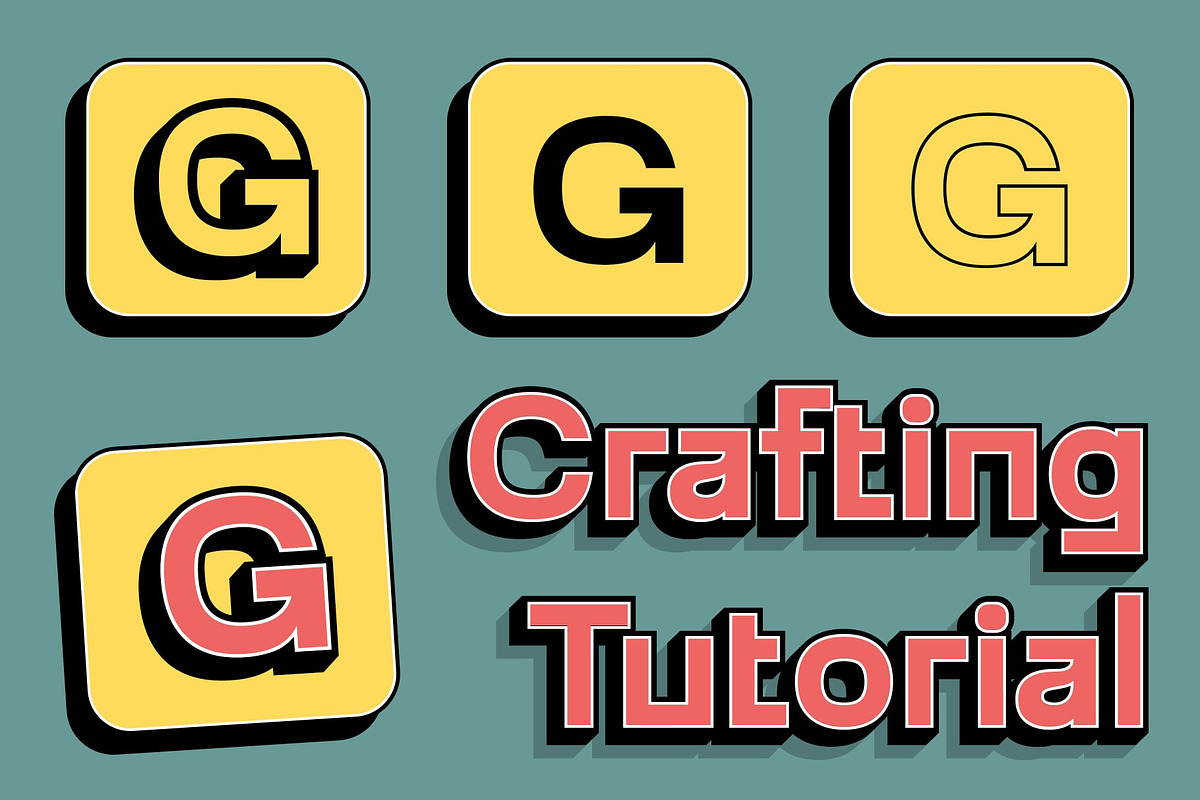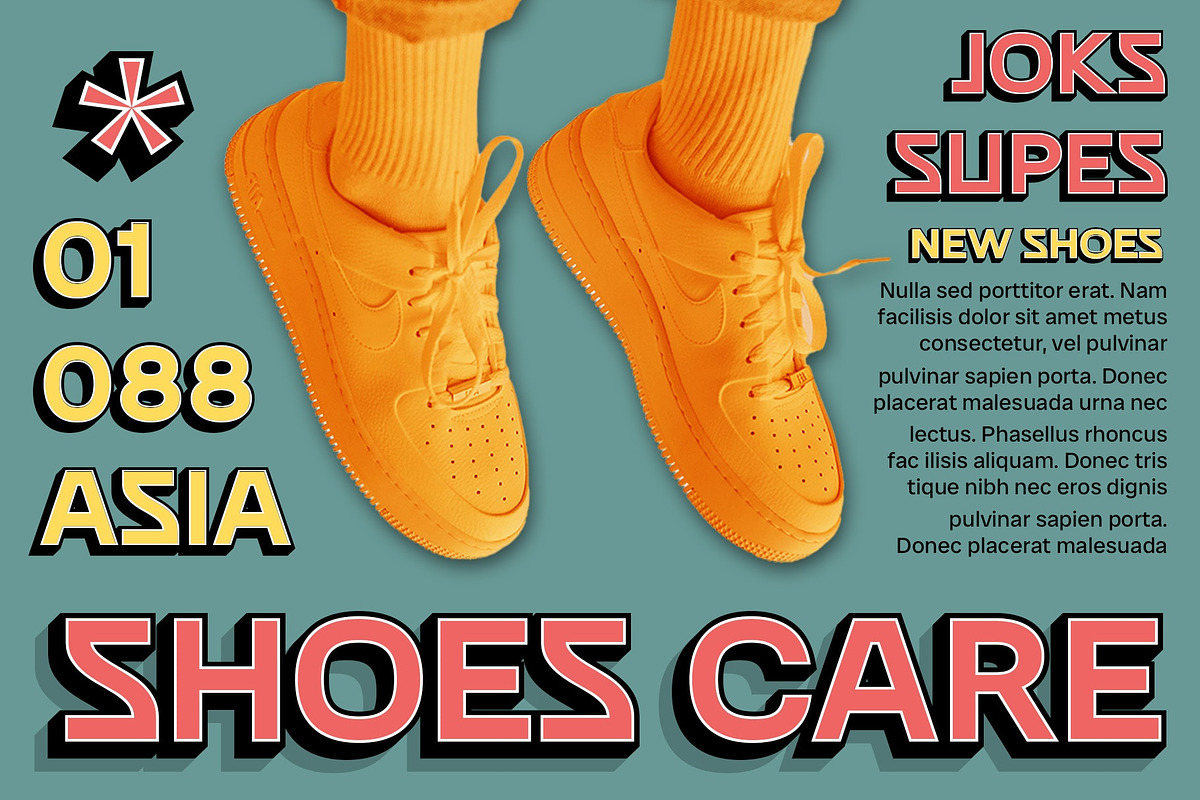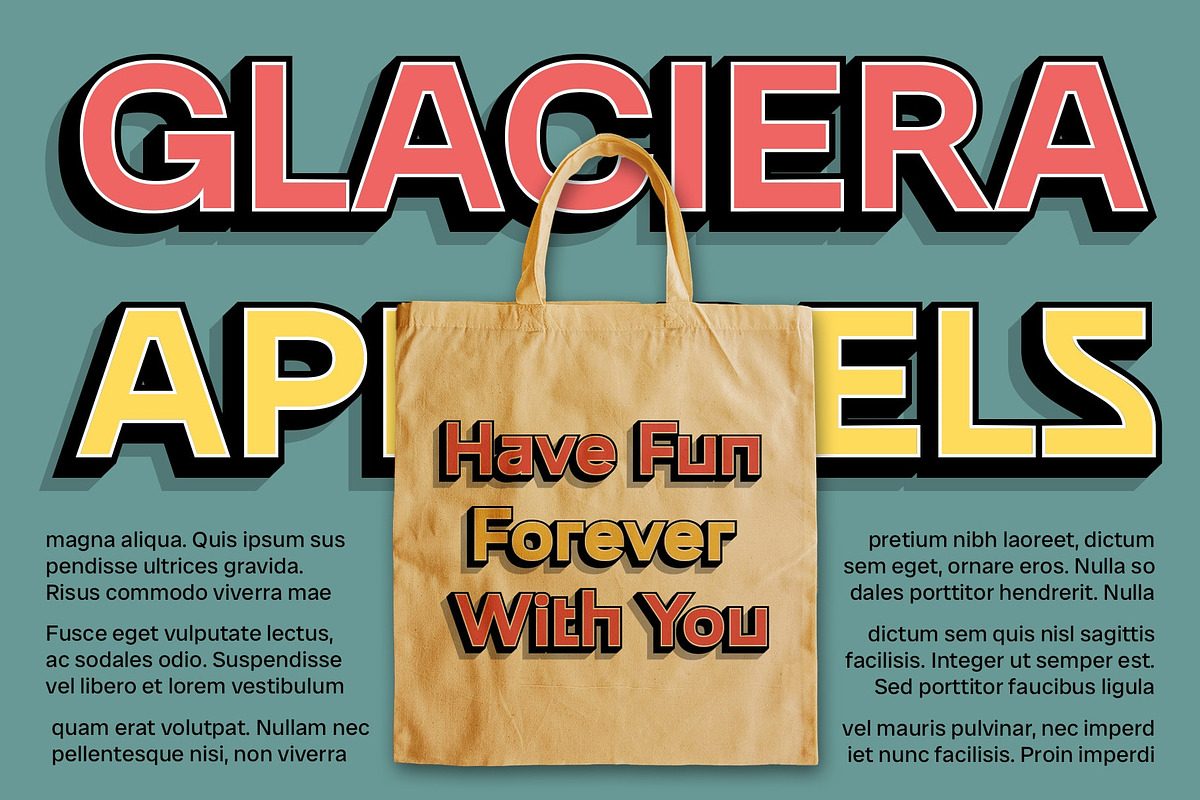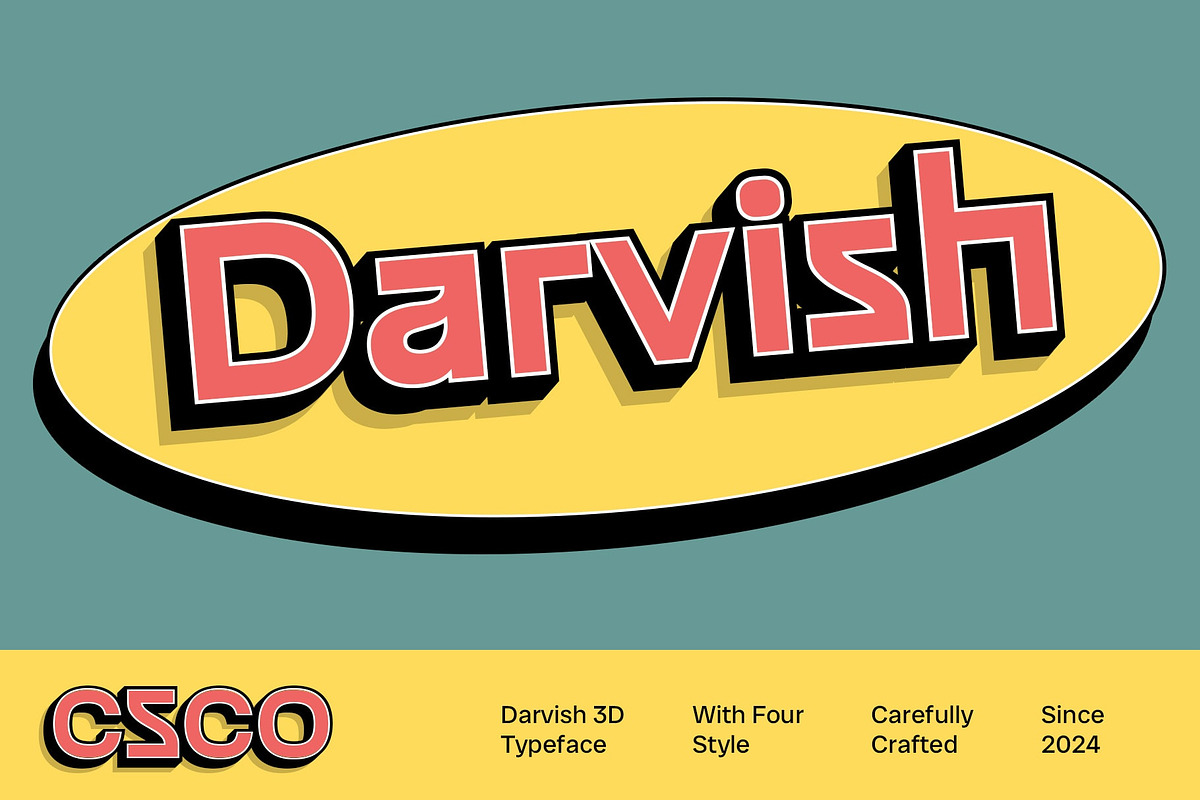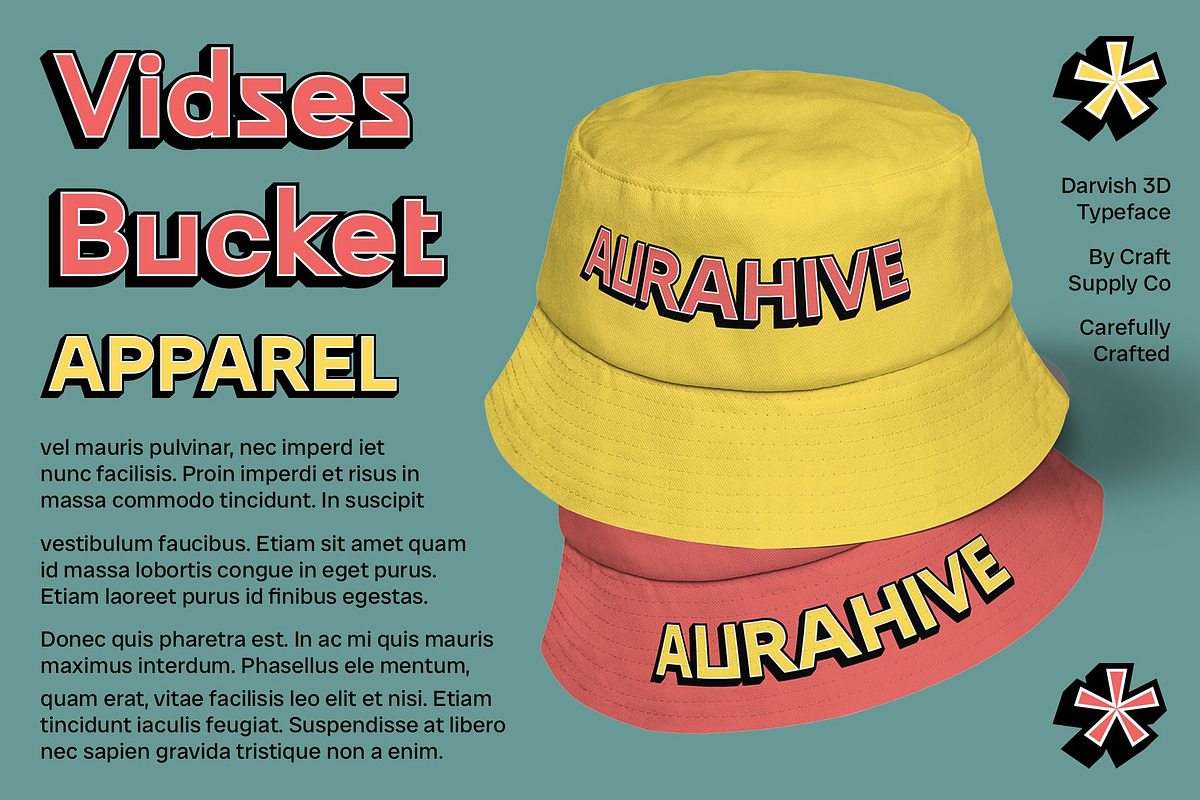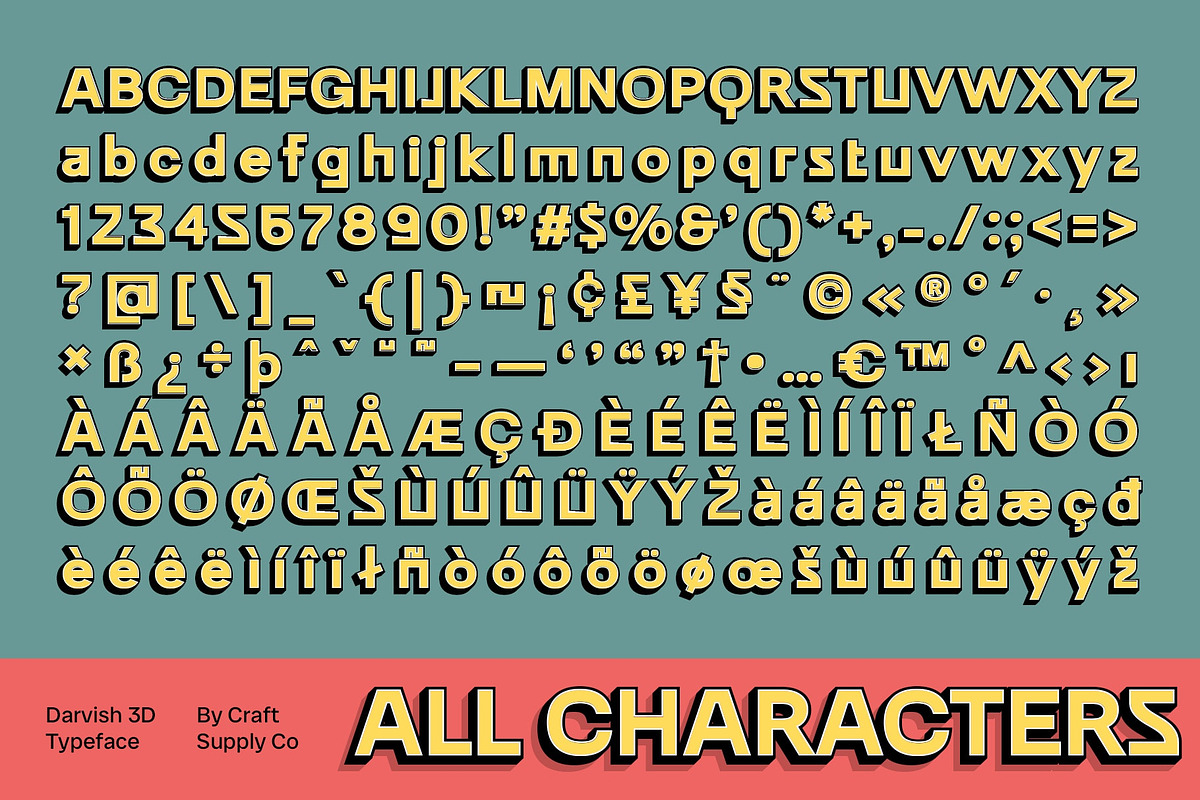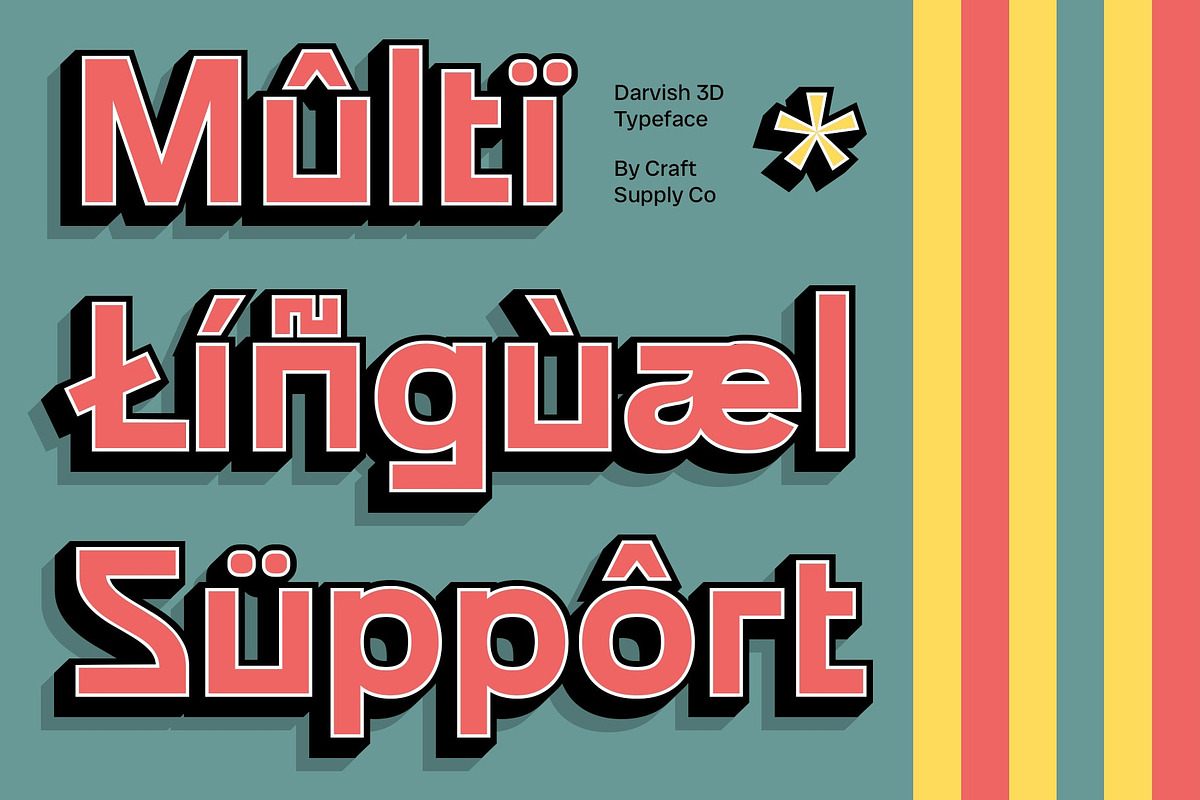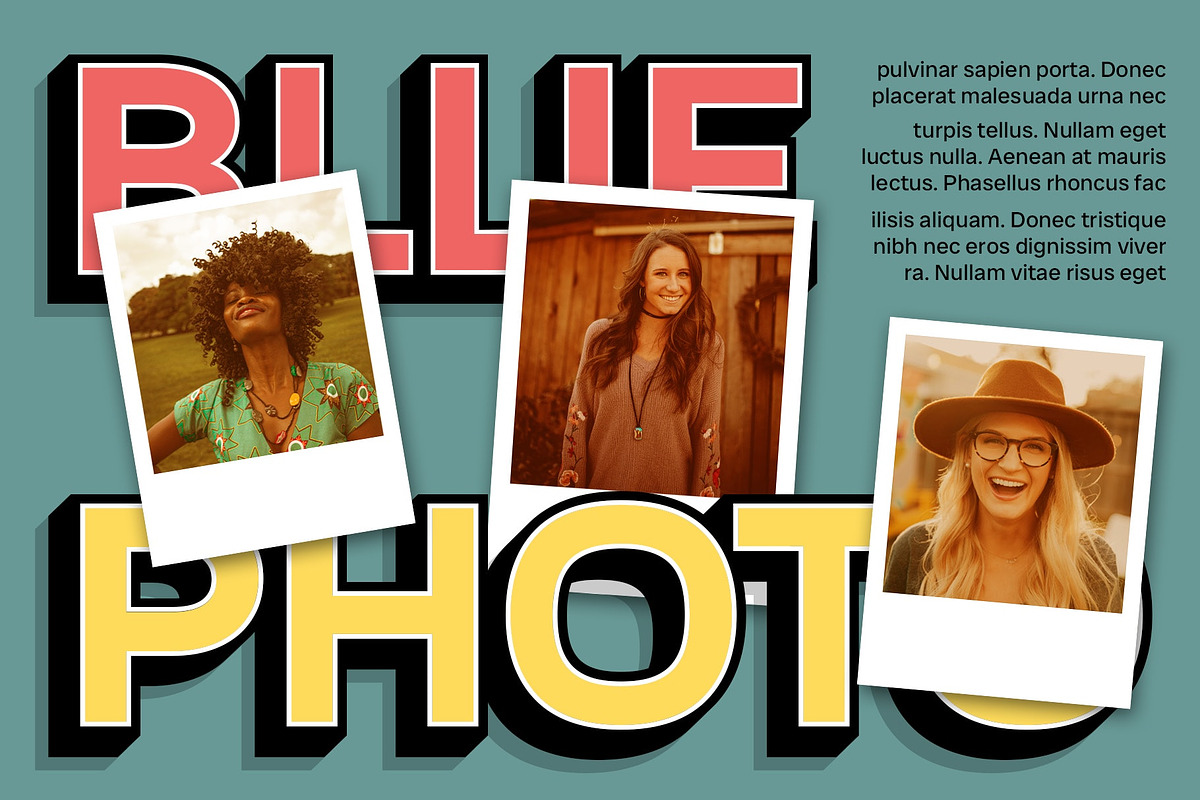
CS Darvish 3D
CS Darvish 3D: Attention-Grabbing 3D Font
Striking 3D Effect CS Darvish 3D is a 3D display font based on the CS Sans Serif font. Designed to attract attention and provide an interesting visual effect, this font is perfect for designs aiming to create a strong and eye-catching impression.
Ideal for Captivating Displays Perfect for headlines, banners, and other display purposes, CS Darvish 3D ensures that your message is both seen and remembered. Its clean and modern sans-serif style combined with a striking 3D effect adds a distinct touch to various design projects.
Versatile and Modern Despite its bold appearance, this font is versatile and modern. Its 3D form makes it suitable for a wide range of projects, from branding to digital designs, where a font with a strong visual impact is essential for making a statement.
Perfect for Adding a Unique Touch CS Darvish 3D is ideal for projects that require a font with a unique touch. Whether you’re designing a poster, logo, or website, this font will undoubtedly add a distinct and memorable element to your designs.
- CS Darvish Regular
- CS Darvish Outline
- CS Darvish Extrude Right
- CS Darvish Extrude Left